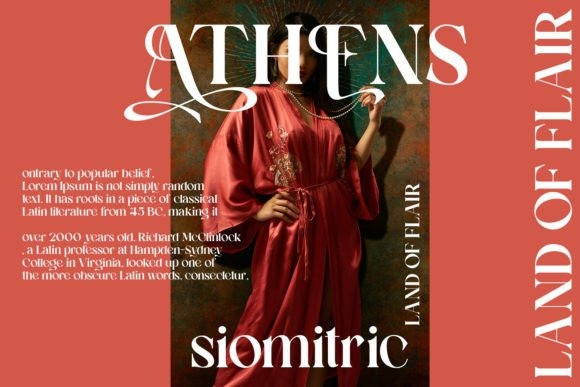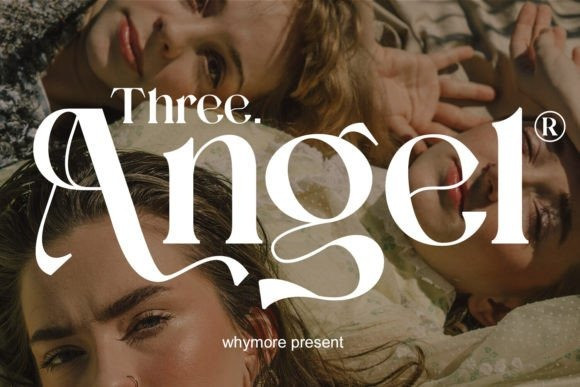
Grinjake Font
Grinjake Font by Whymore 18,484 downloads
Grinjake Font
Grinjake Font is a typeface that is flexible and very flexible and is suitable for designs that emphasize aesthetics and beauty. With its unique and graceful curves and the impression of a thinly defined sans serif, this typeface can evoke a sense of beauty with classy elegance and luxury.
Whether used for branding, invitations, or editorial design, Grinjake adds a touch of glamor to any project.